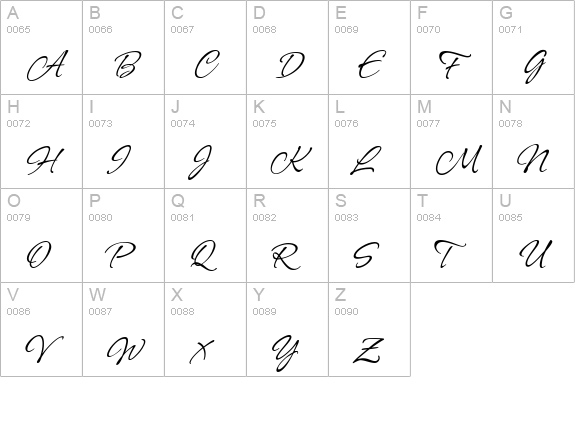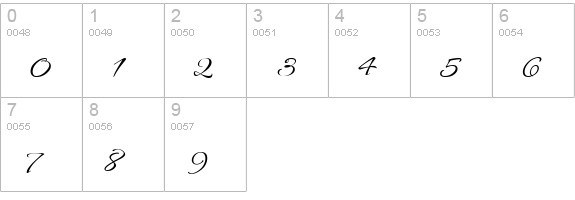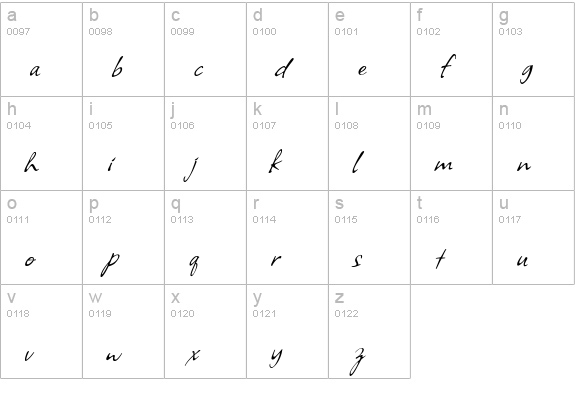
AllisonROB Font Details
Introducing AllisonROB font - a modern and stylish typeface perfect for adding a touch of elegance to your designs. This unique font features clean lines and sleek curves, making it ideal for a wide range of projects, from branding to social media graphics. With its eye-catching appearance and versatility, AllisonROB font is sure to make your work stand out. The best part? AllisonROB font is completely free to download at FontsMarket.com. Simply visit the website and add this beautiful font to your collection with just a few clicks. Whether you're a seasoned designer or just starting out, AllisonROB font is a must-have addition to your font library. Don't miss out on this amazing opportunity to enhance your projects with this stunning typeface - download AllisonROB font today and let your creativity shine!